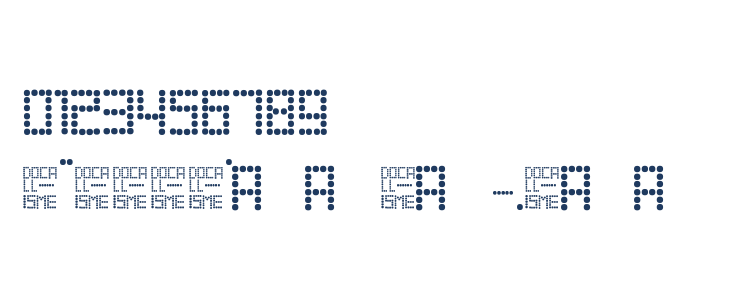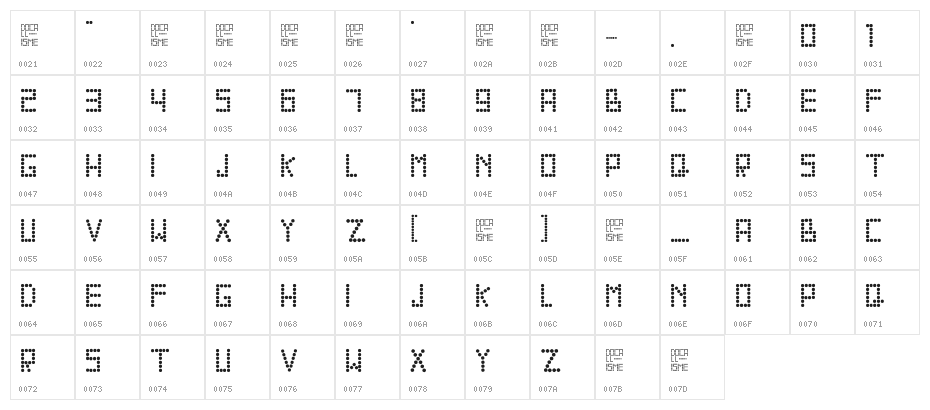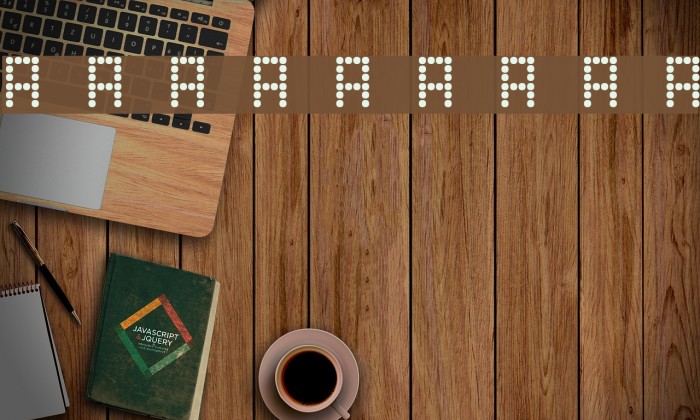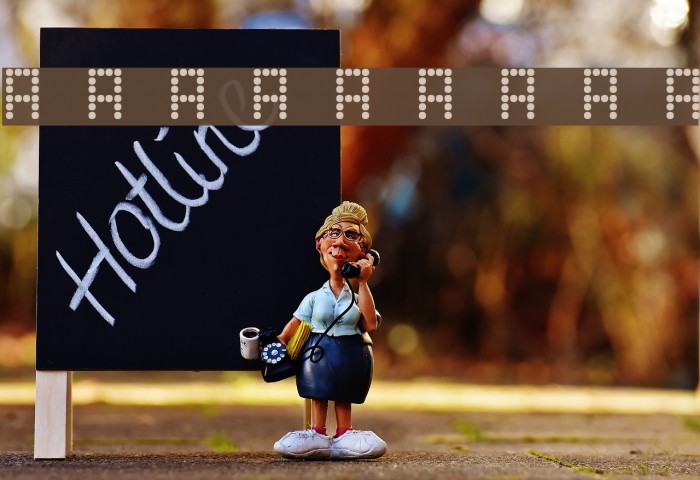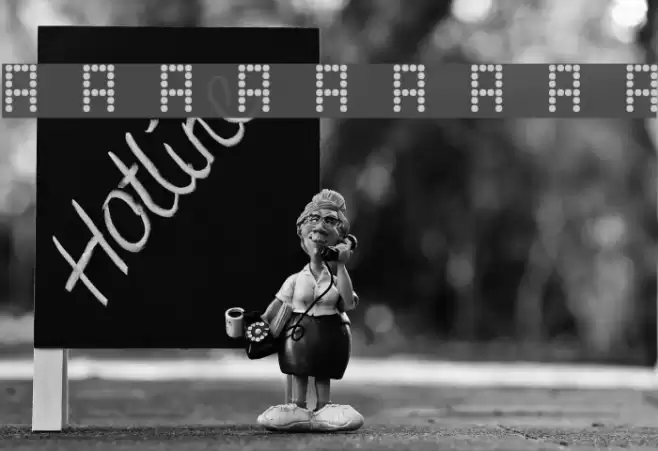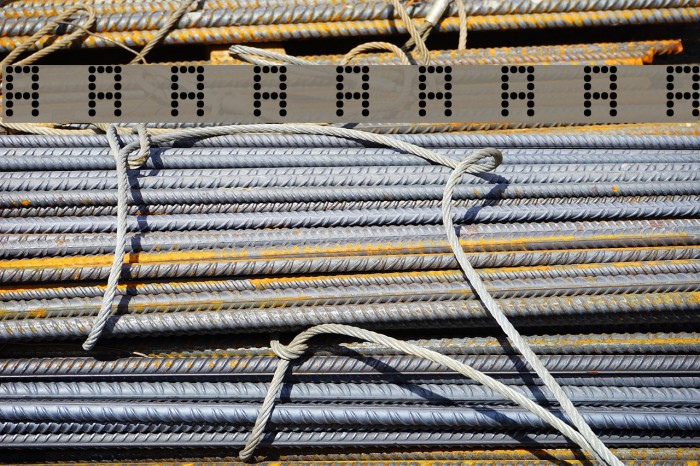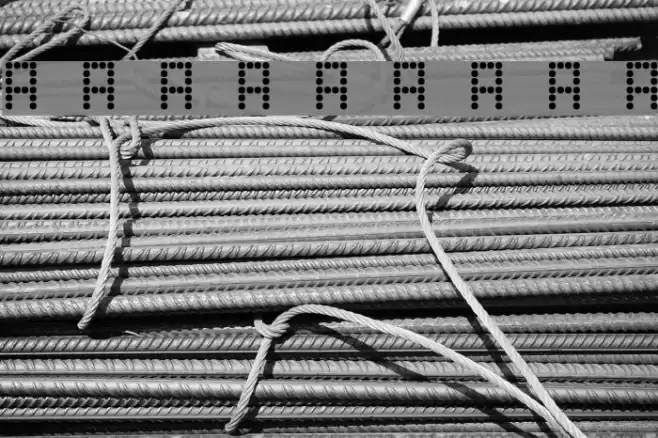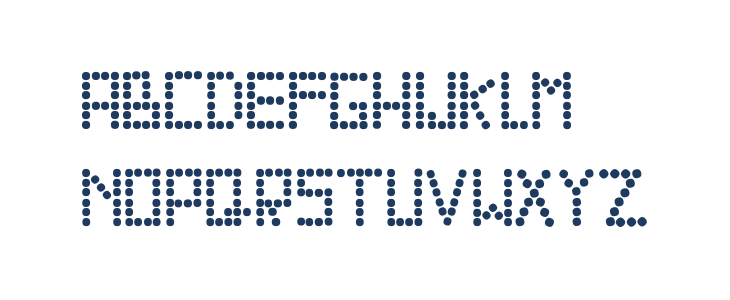
SALLYROSS Font
SALLYROSS Description
This font features a unique design composed entirely of dots, creating a digital and futuristic appearance. Each character is formed by a grid of dots, giving it a pixelated look reminiscent of early digital displays or LED screens. The uniformity and precision of the dots contribute to a clean and structured aesthetic, making it stand out as both modern and retro. The spacing between the dots is consistent, ensuring legibility while maintaining its distinctive style. This font is particularly suitable for projects that aim to evoke a sense of technology or digital innovation.
| Use Case | Logos, Headlines, Digital displays |
| Proposed Projects | Ideal for digital displays, tech-themed designs, futuristic branding, and retro-inspired projects. |